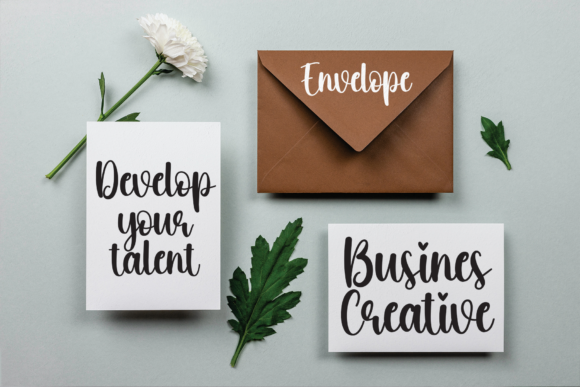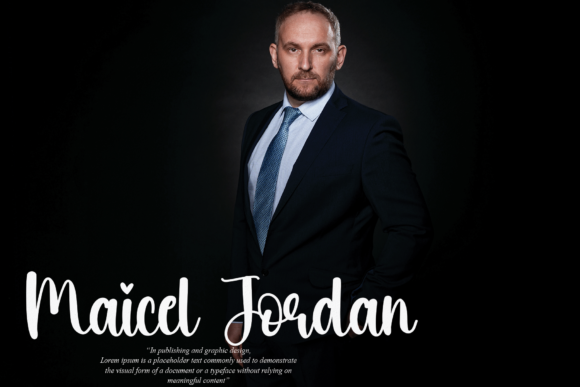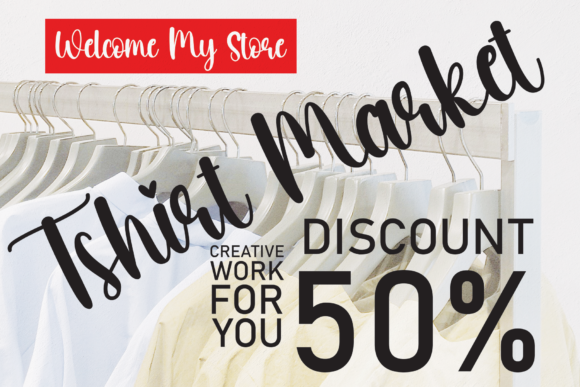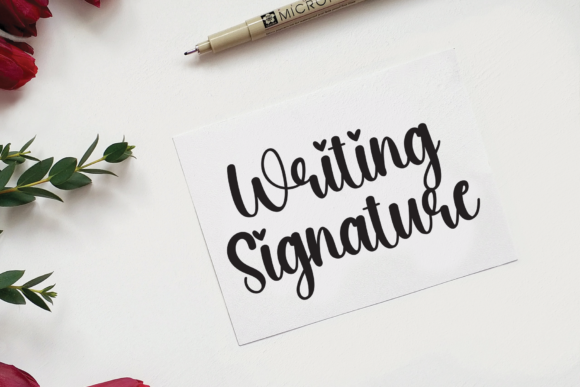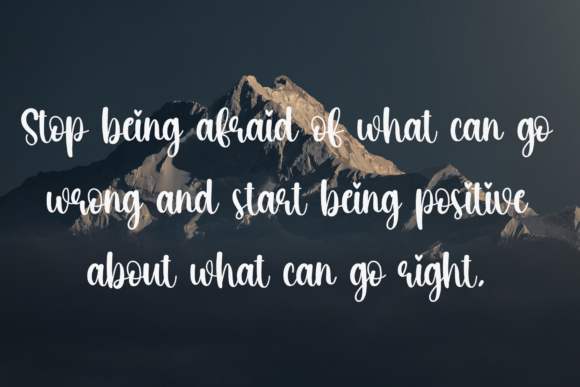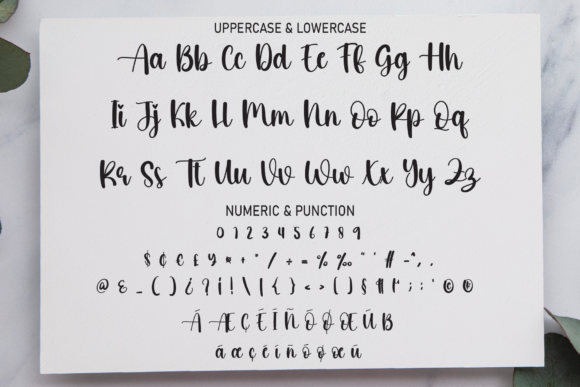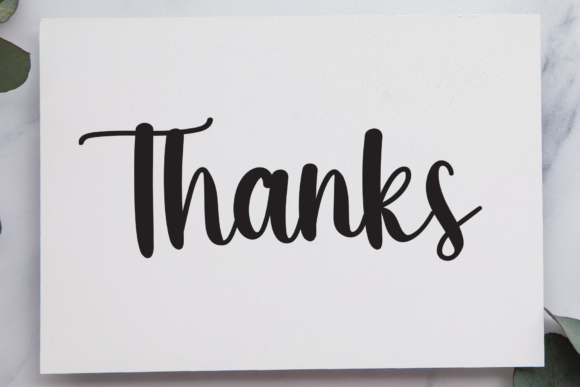
Hello Handmade Font
About Hello Handmade Font
Hello Handmade is a stylish and dainty script font that brings a unique charm to any design project. Script fonts like Hello Handmade are known for their fluidity and elegance, often mimicking the style of handwritten calligraphy. This makes them a popular choice for a variety of projects that require a touch of sophistication and personalization.
Whether you’re working on logos, branding projects, labels, photography, watermarks, or special events, Hello Handmade can add a beautiful script taste to your designs. Its stylish and dainty nature makes it suitable for both modern and vintage aesthetics, providing a timeless appeal.
In the world of script fonts, Hello Handmade stands out for its unique style. It manages to strike a balance between being stylish and dainty, making it a great choice for projects that require a delicate touch. Despite its dainty nature, Hello Handmade is robust enough to be used in a variety of applications, from small labels to large signage.
In addition to its aesthetic appeal, Hello Handmade is also practical. It’s easy to read, which is an important consideration when choosing a script font. Despite its stylish, handwritten style, Hello Handmade remains legible even at smaller sizes, making it a reliable choice for a wide range of applications.
In conclusion, Hello Handmade is more than just a stylish and dainty script font. It’s a versatile design tool that can bring a unique, personal touch to your projects. Whether you’re a seasoned designer or just starting out, Hello Handmade is a script font worth considering. Its combination of style, versatility, and legibility make it a standout choice in the world of script fonts. So, if you’re looking for a font that can add a beautiful script taste to your projects, Hello Handmade might just be the perfect fit.